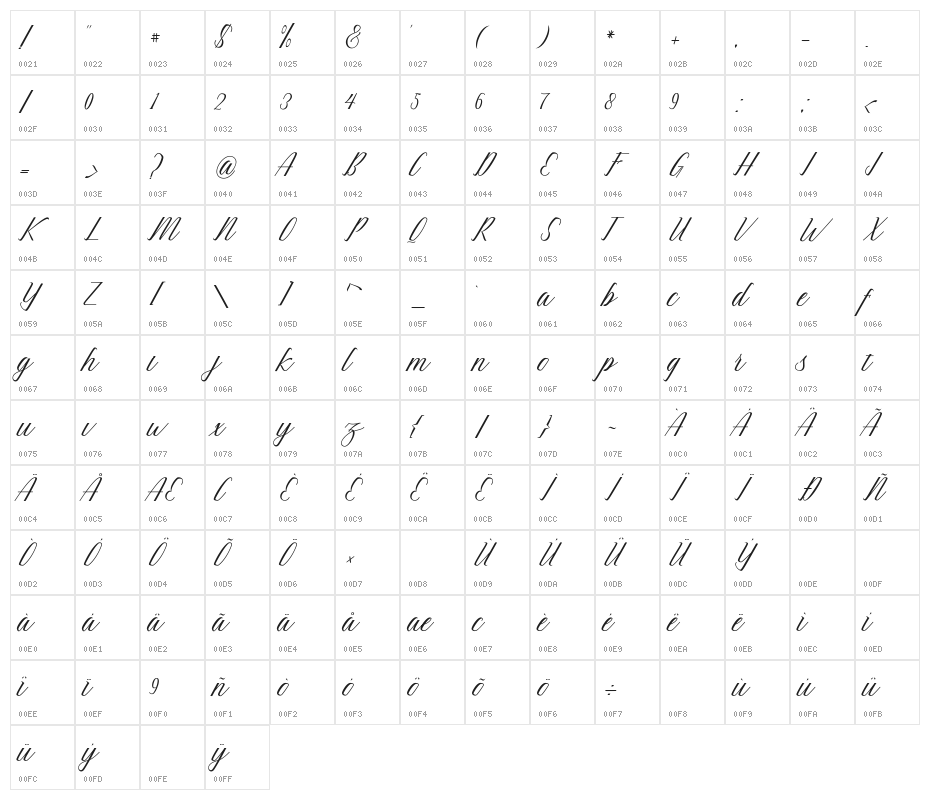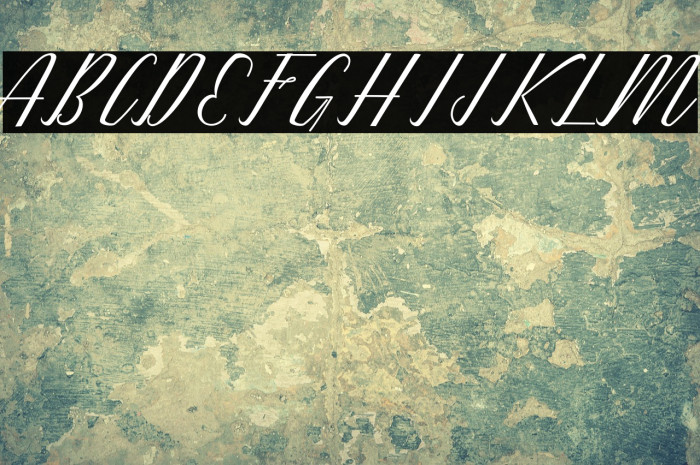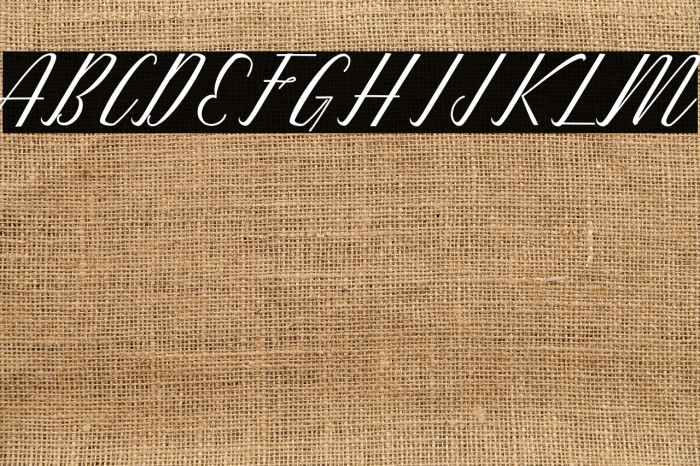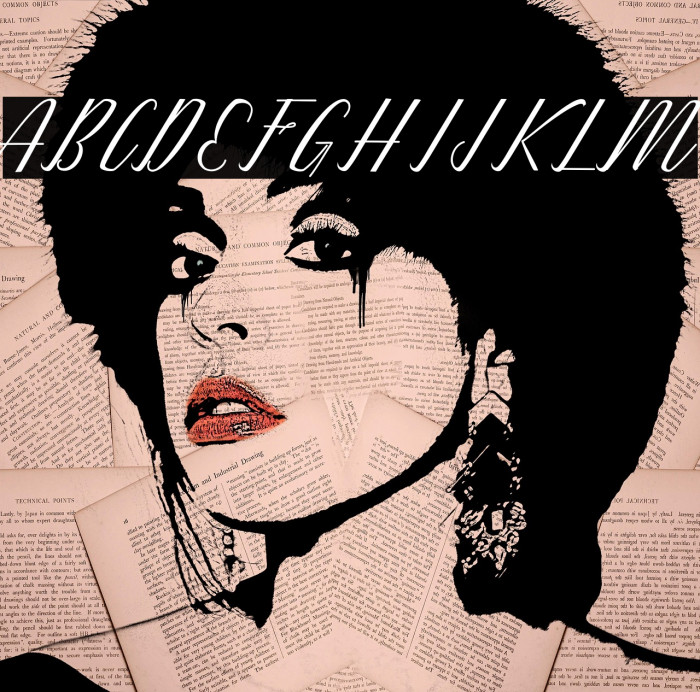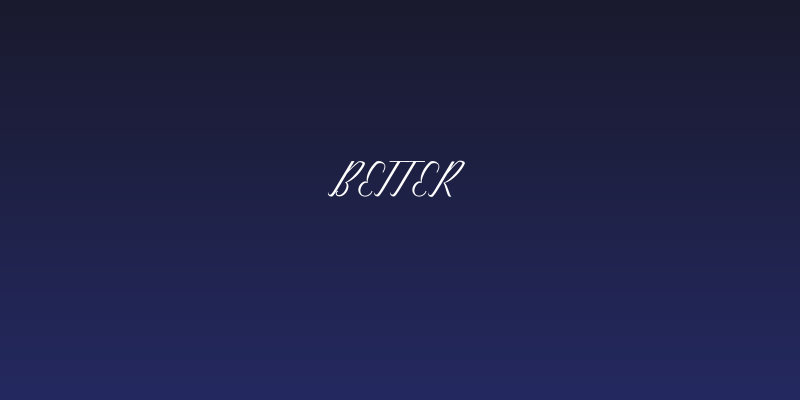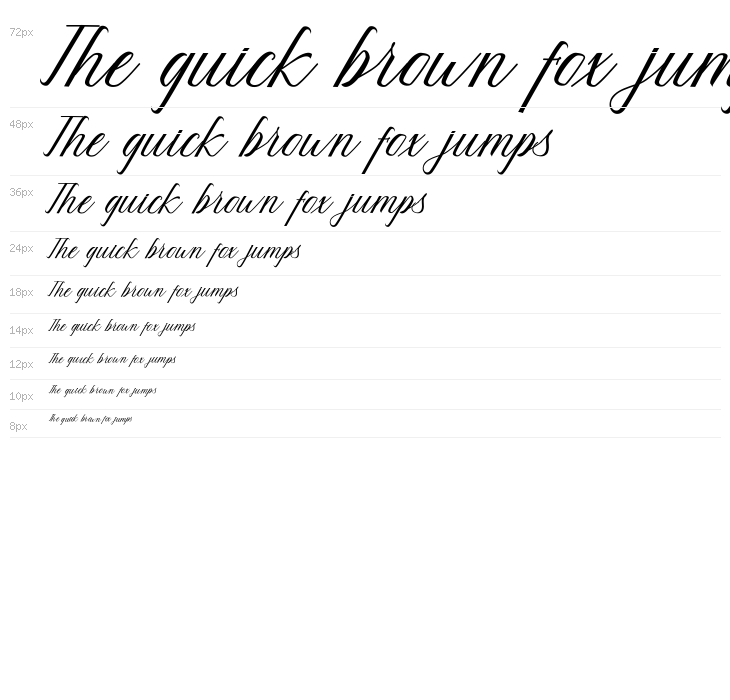
Better Font
This elegant script font features a flowing, cursive style with a sophisticated flair. The letters are connected, creating a seamless and fluid appearance. The uppercase letters are tall and slender, while the lowercase letters maintain a consistent height, adding to the font's graceful aesthetic. The numerals are designed to match the overall style, with a slight slant that complements the cursive nature. Special characters are included, maintaining the same elegant and flowing design. This font is perfect for projects that require a touch of elegance and sophistication.
| Overall Style | Elegant |
| Use Case | Logos, Invitations, Branding |
| Proposed Projects | Ideal for wedding invitations, elegant branding, personal signatures, and luxury product packaging. |